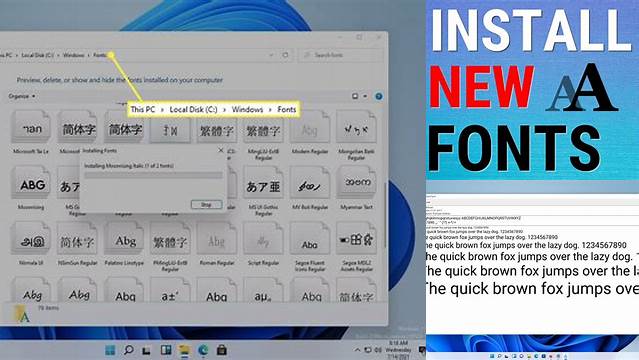
Install Fonts On Windows 11: The Ultimate Guide
Installing new fonts in Windows 11 is a simple process that can significantly enhance your creative projects and document aesthetics. Whether you're a designer, writer, or simply someone who enjoys customizing their digital environment, expanding your font library is a valuable skill. In this guide, we'll walk you through the various methods for installing fonts in Windows 11, ensuring you can easily add the perfect typeface to your system.
Why Install New Fonts?
Before diving into the installation process, let's explore why you might want to install new fonts in the first place. The default font selection in Windows 11 is functional, but it can be limiting for specific tasks or personal preferences. New fonts can bring a unique flair to your documents, presentations, and graphic designs. Imagine crafting a wedding invitation with an elegant script font or designing a poster with a bold, modern typeface. The possibilities are endless.
Moreover, certain fonts are specifically designed for readability in different contexts. For instance, a monospaced font might be ideal for coding, while a serif font could enhance readability in long-form documents. By expanding your font collection, you gain the flexibility to choose the best tool for the job.
Finding Fonts
Finding the right font is the first step. Several online resources offer a vast selection of fonts, both free and commercial. Some popular websites include:
- Google Fonts: A fantastic resource for free, open-source fonts. Google Fonts offers a wide variety of styles, weights, and languages, all available for free download and use.
- Adobe Fonts: If you're an Adobe Creative Cloud subscriber, you have access to thousands of high-quality fonts through Adobe Fonts. These fonts are seamlessly integrated with Adobe applications and offer a professional touch to your projects.
- DaFont: A popular website with a large collection of free fonts, often categorized by style and theme. DaFont is a great place to discover unique and creative typefaces.
- FontSpace: Another excellent resource for free fonts, with a user-friendly interface and a wide selection of styles.
- MyFonts: A commercial font marketplace offering a vast selection of premium fonts from various foundries and designers. MyFonts is a go-to resource for professional designers seeking unique and high-quality typefaces.
When choosing a font, consider the intended use and the overall aesthetic you want to achieve. Think about the font's readability, its personality, and how it complements other design elements. Experimenting with different fonts can be a fun way to discover new styles and enhance your creative work.
Methods for Installing Fonts in Windows 11
Now, let's get to the heart of the matter: how to install new fonts in Windows 11. There are several methods you can use, each with its own advantages and nuances. We'll cover the most common and effective techniques to ensure you can easily add fonts to your system.
Method 1: Using the Settings App
The easiest and most straightforward way to install fonts in Windows 11 is through the Settings app. This method is quick, efficient, and suitable for most users. Here's how to do it:
- Navigate to Personalization: In the Settings app, click on "Personalization" in the left-hand sidebar. This section allows you to customize various aspects of your Windows experience, including fonts.
- Select Fonts: In the Personalization settings, click on "Fonts." This will take you to the Fonts settings page, where you can manage your installed fonts and add new ones.
- Drag and Drop or Use the "Drag and drop to install" Area: On the Fonts page, you'll see a section labeled "Drag and drop to install." Simply drag the downloaded font file (e.g.,
.ttf
or.otf
) into this area. Windows 11 will automatically install the font for you. Alternatively, you can double-click the font file and then click the "Install" button that appears in the font preview window.
That's it! The font is now installed and ready to use in your applications. You can verify the installation by checking the list of installed fonts on the Fonts settings page or by opening an application like Microsoft Word and looking for the new font in the font selection menu.
Method 2: Using the Font File Context Menu
Another convenient method for installing fonts is through the context menu that appears when you right-click a font file. This approach is particularly useful when you have multiple font files to install at once. Here's how it works:
Installing new fonts in Windows 11 is a simple yet powerful way to customize your digital experience and enhance your creative projects. Whether you're a designer, writer, or simply someone who appreciates typography, expanding your font library opens up a world of possibilities. By following the methods outlined in this guide, you can easily add new fonts to your system and manage your font collection effectively. So go ahead, explore the vast world of fonts, and find the perfect typefaces to express your unique style and vision. Remember, installing new fonts is about more than just aesthetics; it's about enhancing communication and creativity in all your endeavors. And installing fonts the right way ensures your system remains stable and your designs look their best. So, install fonts today and transform your digital world!